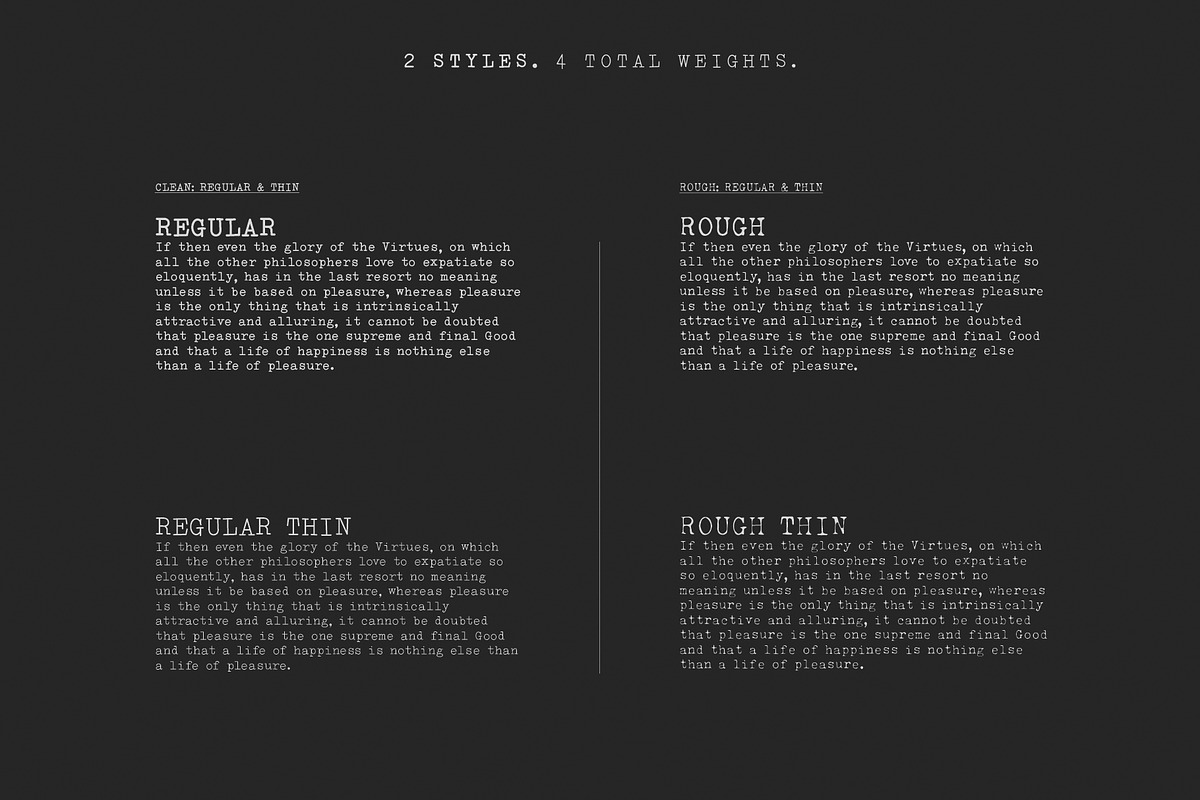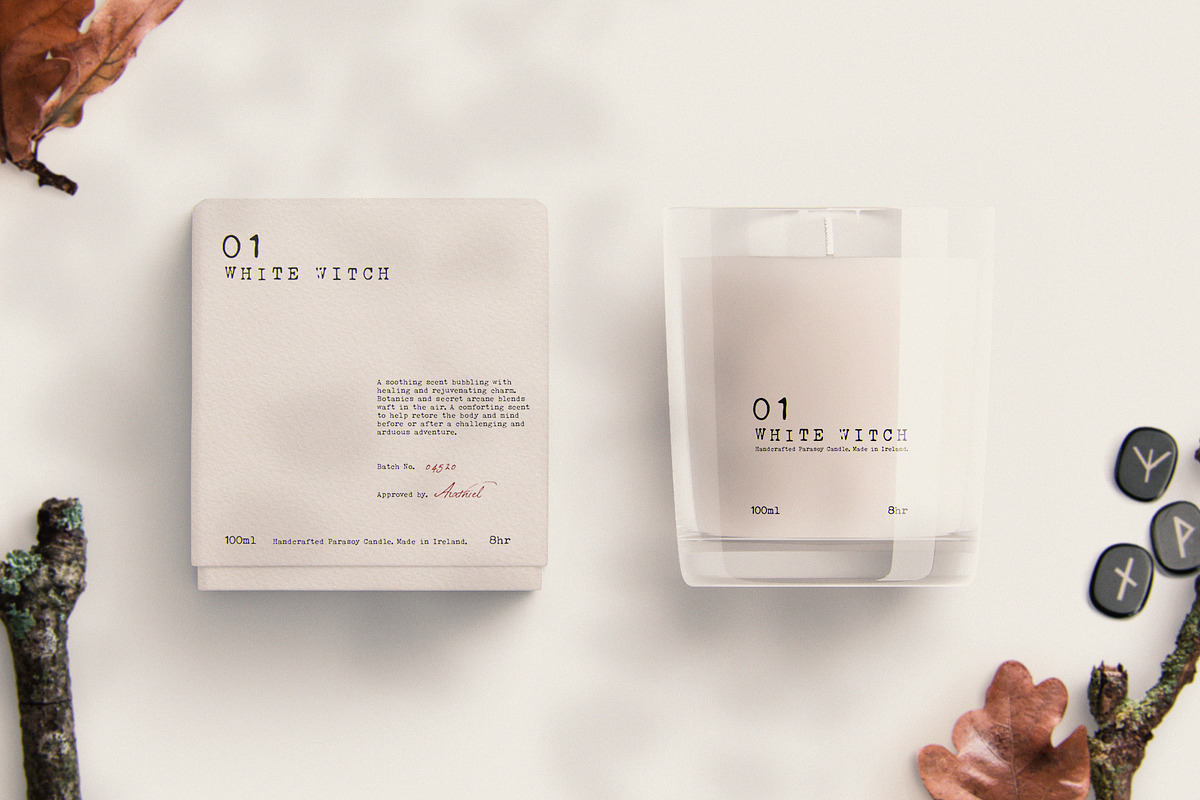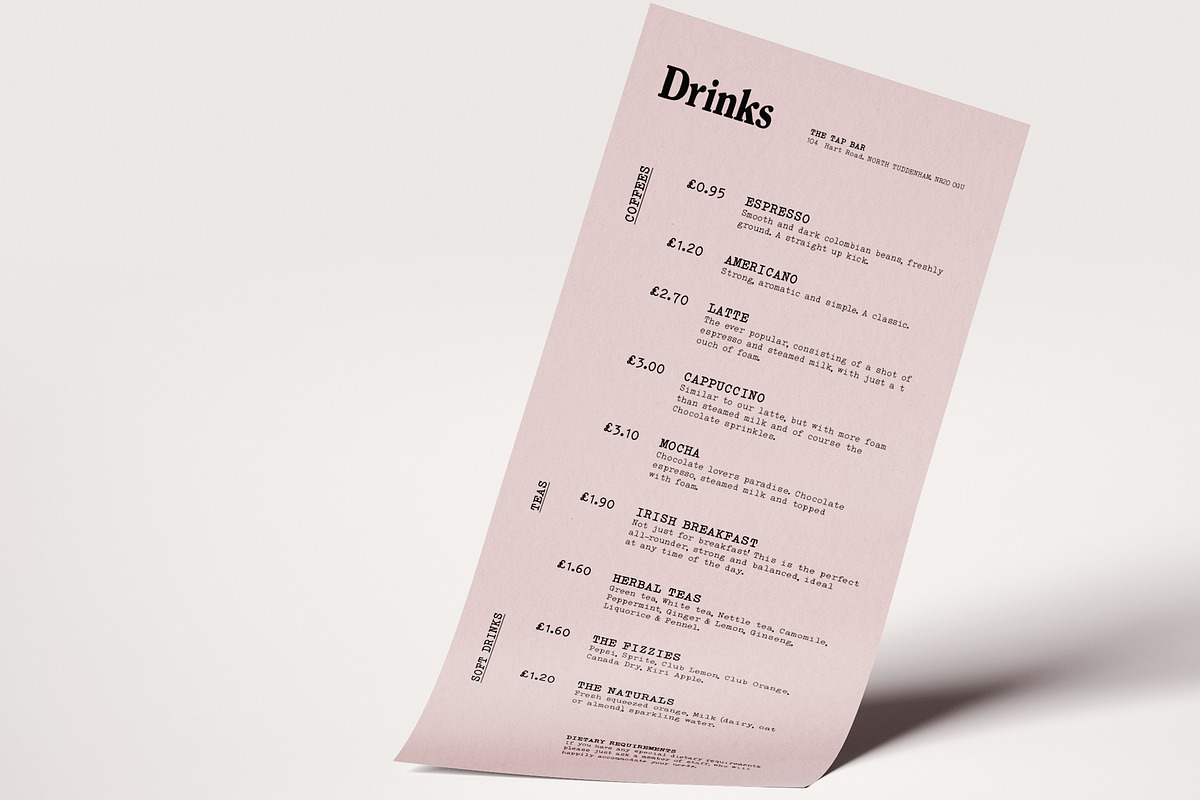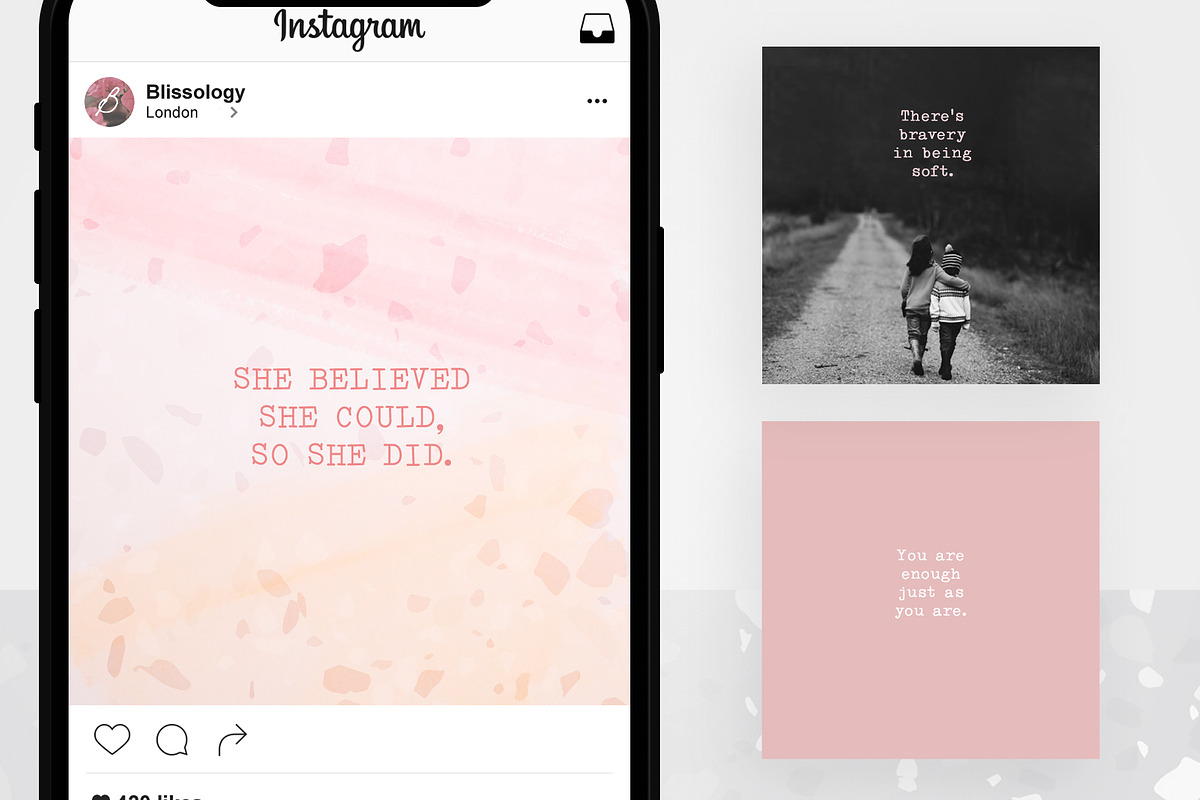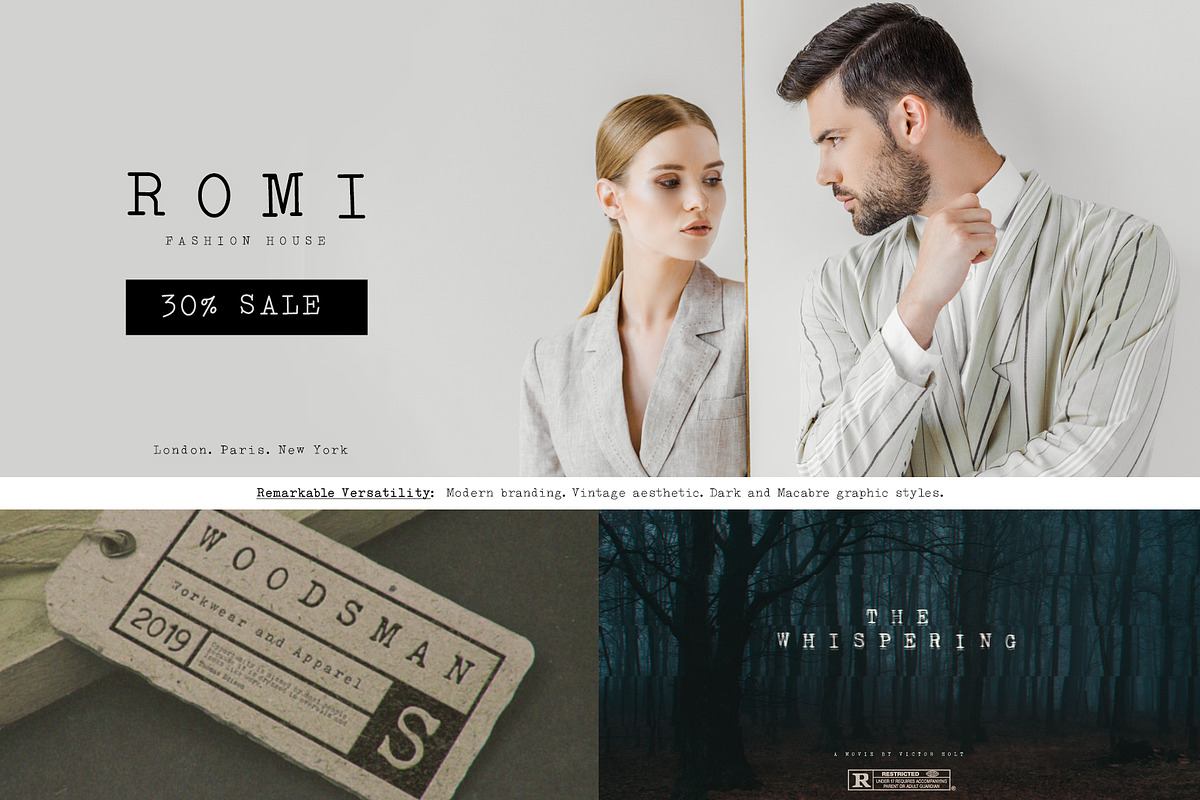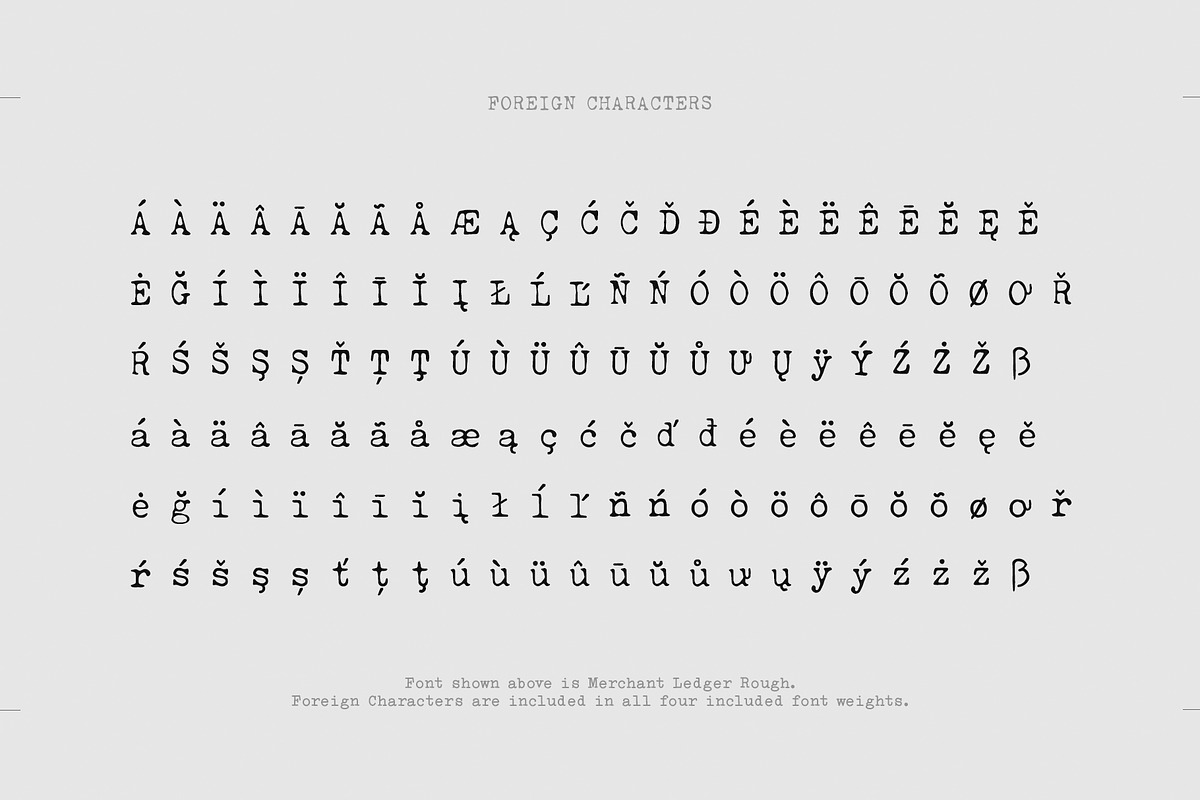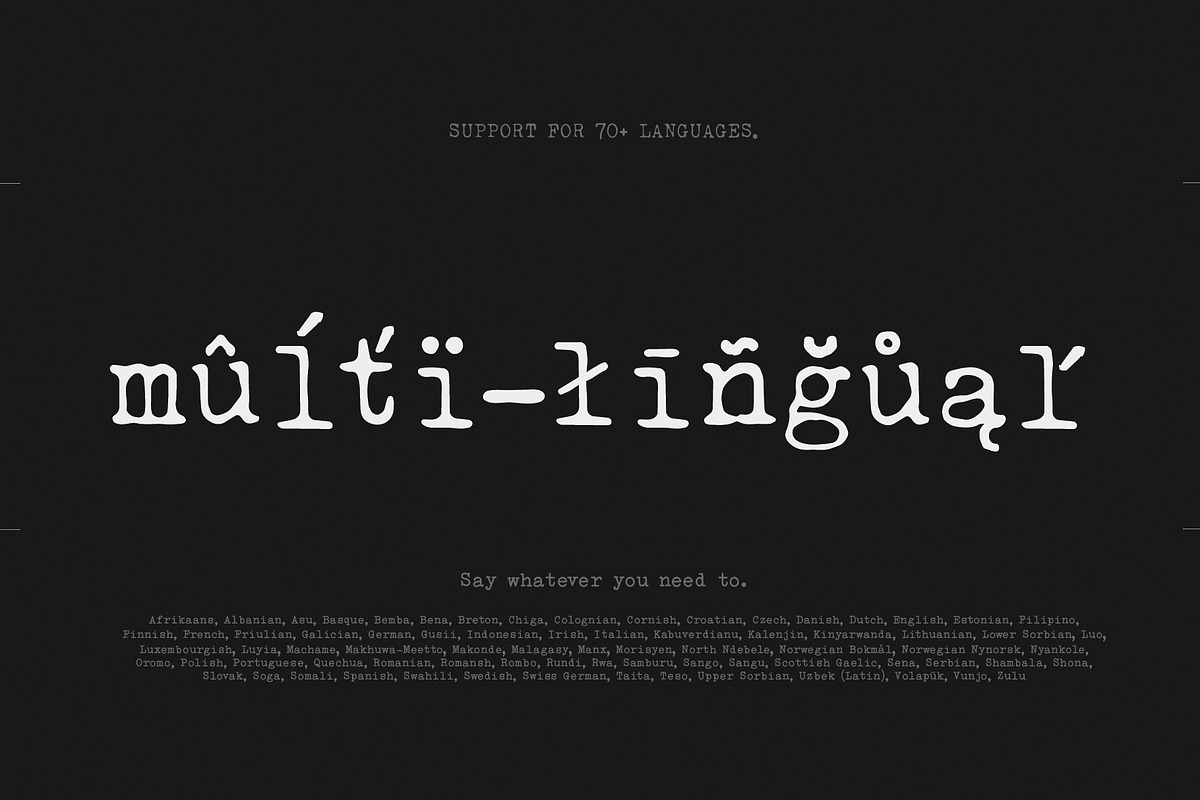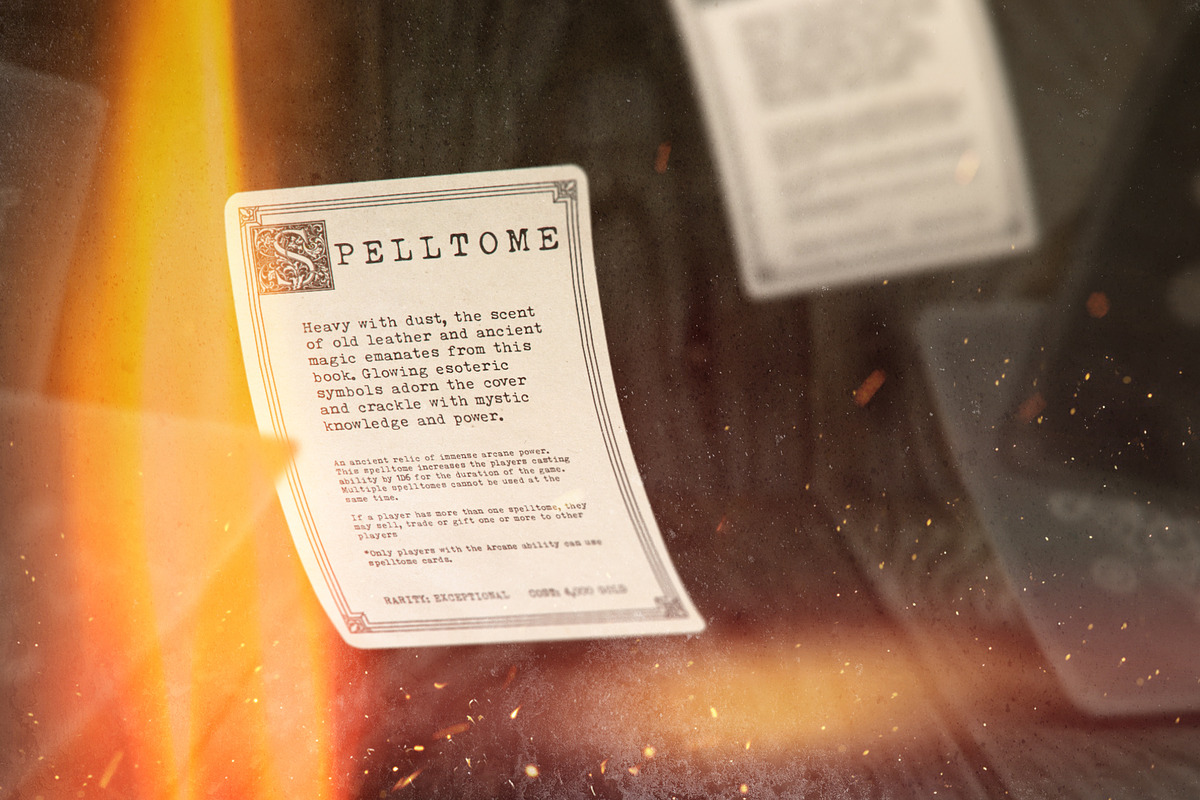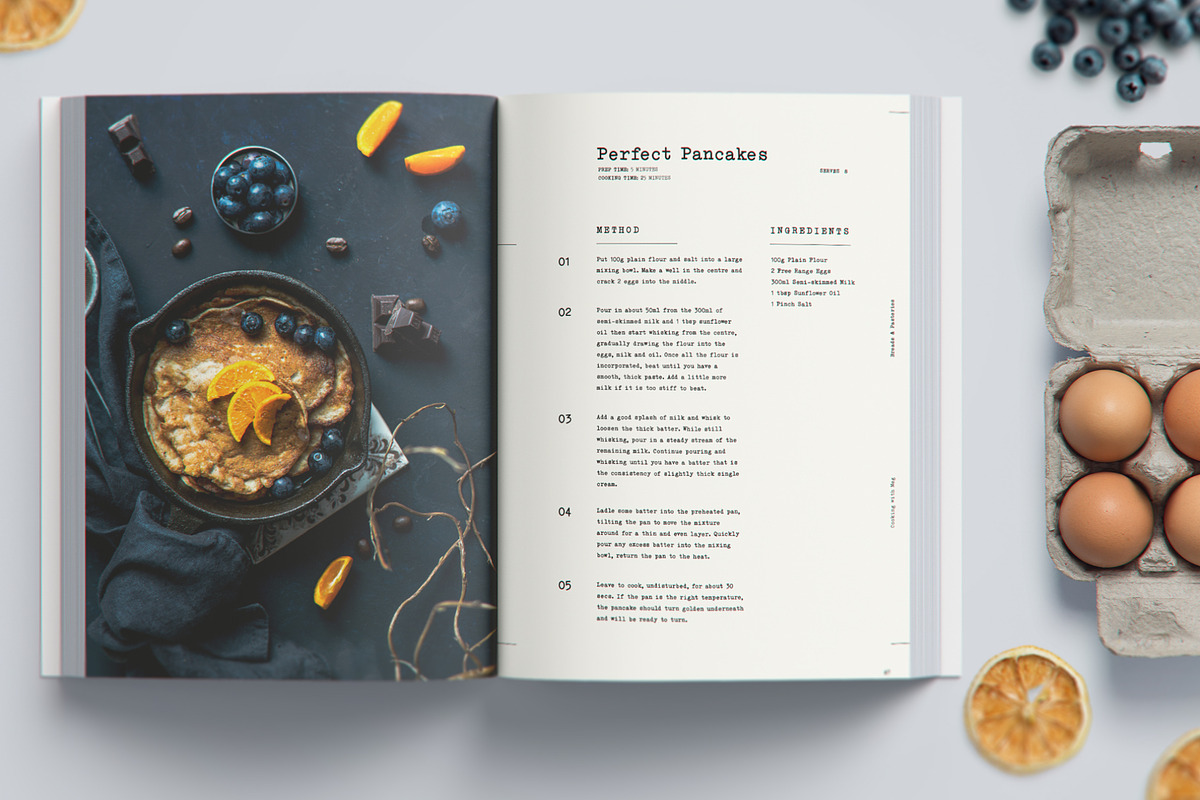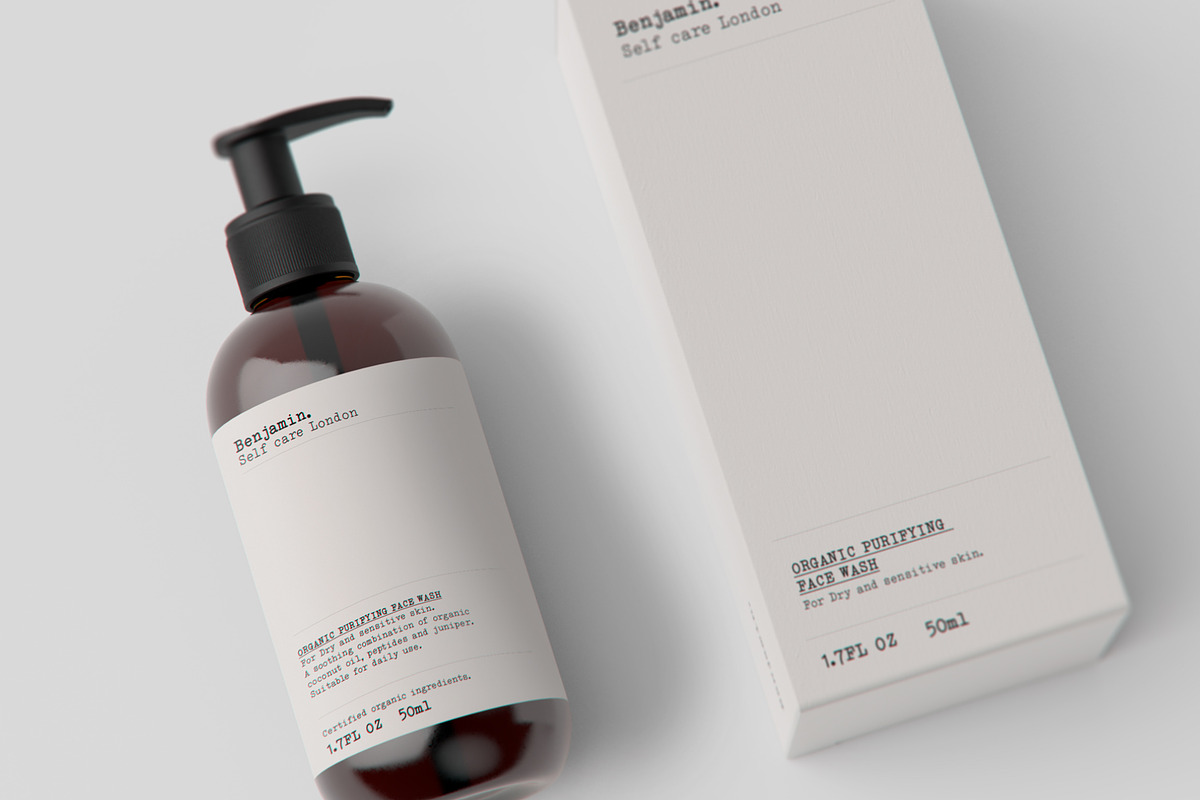
Merchant Ledger - Typewriter Family
UPDATE :) - Now with multi-lingual support!!
There are few fonts that are more versatile than Typewriter fonts. From modern minimal branding, to dark and gritty posters, a typewriter font can effectively do it all. So, say hello to Merchant Ledger.
Developed from authentic typewriter hammer keys, I have created two main styles (clean and rough), each in two weights (regular and thin). The result being a small family of remarkably versatility.
The clean style works perfectly for branding projects, creating corporate or even wedding stationery, print layouts for books, brochures and magazines, and branded social media posts. All while capturing a sharp, contemporary feel, without looking cold and sterile. The rough style is a little like the 'rebel' of the family, full of character and a little rough around the edges...ideal for movie or game posters and graphics, through to more rustic logo design, to organic and vintage branding and packaging.
Personality
By capturing the subtle nuances and imperfections of the hammer keys, Merchant Ledger retains all the honesty of the real machine; slightly misaligned characters and baselines create authenticity, without sacrificing legibility and functionality.
Alternates Included
Rough and Rough Thin both come with full alphabetic alternates in upper and lowercase, depicting where the keys are blocked with ink, creating broken shapes that remove boring repetition and add even more personality and authenticity.
Multi-lingual Support
All four weights have been extensively updated to include multi-lingual characters. Over 70 languages are now supported (according to FontDrop). Please see the preview for included foreign characters.
- Merchant Ledger Regular
- Merchant Ledger Thin
- Merchant Ledger Rough
- Merchant Ledger Rough Thin
Suitable For:
- Branding and Logo Design
- Corporate Stationery
- Wedding Stationery
- Packaging Design
- Vintage Graphic Styles
- Social Media Posts
- Blog Posts
- Book and Game Covers
- Movie Posters
- Table Top Gaming Accessories
- Tshirt and Apparel Design
- Fantasy and Dark Graphic Styles